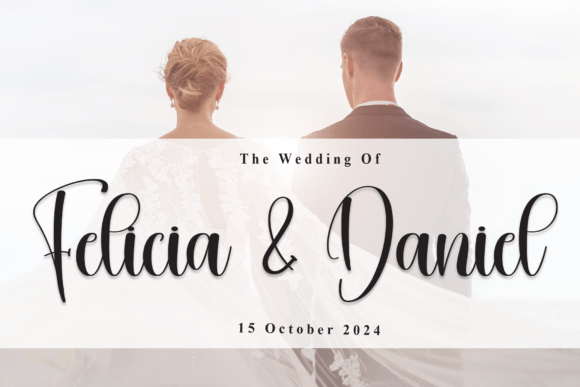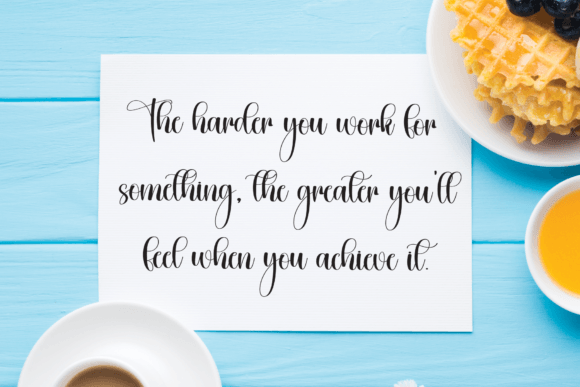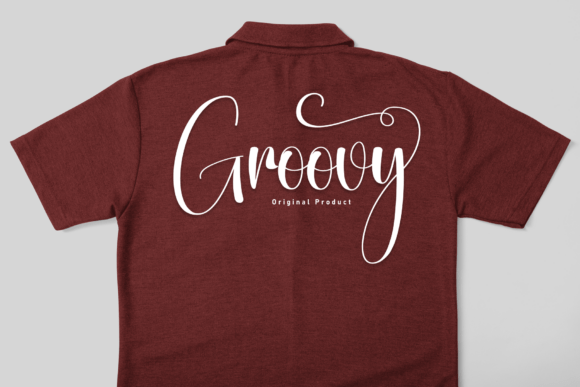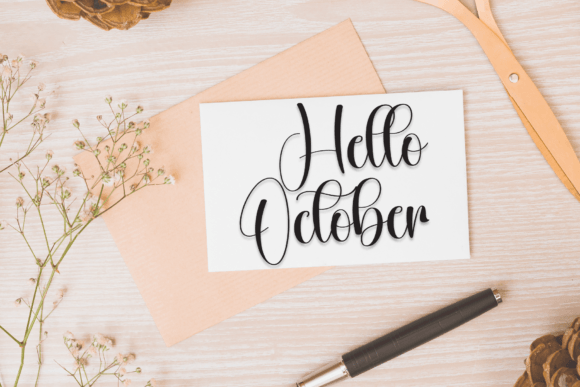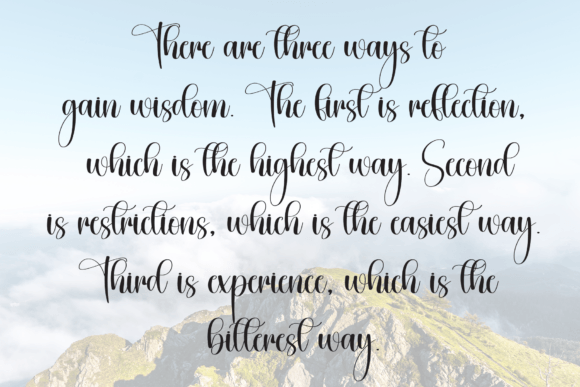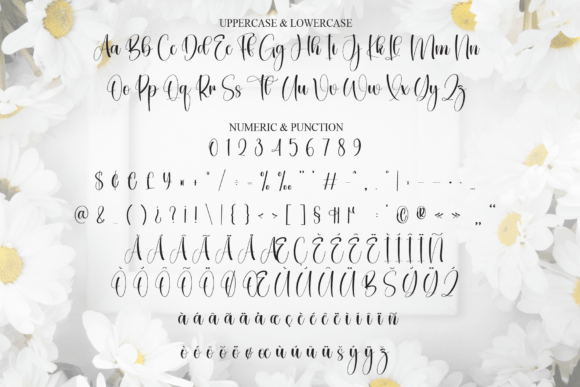
Introduction to Hey Daisy Font
Have you ever been in a creative flow, pouring your heart and soul into a design project, only to realize that it’s missing that special something? The spark that sets it off, the touch that makes it truly special? For many designers, this moment of truth often comes when they’re searching for the perfect font to bring their vision to life. And that’s exactly where the Hey Daisy Font comes in – a lovely handwritten font that adds a playful and friendly touch to any design.
With its smooth, flowing letters and charming curves, the Hey Daisy Font is the perfect design resource for adding a personal touch to invitations, greeting cards, and other creative projects. Whether you’re working on a high-quality design that requires a transparent background or a free download for a DIY project, this font is sure to bring a touch of joy and whimsy to your work.
Key Features of Hey Daisy Font
- Unique, hand-drawn design that adds a personal touch to any creative project
- Perfect for use in creative projects, such as logos, graphics, and typography-based art
Honest Review: Hey Daisy Font
As a designer, I’m always on the lookout for high-quality design resources that can elevate my creative projects. The Hey Daisy Font caught my attention, and I decided to give it a try.
What works well: ✨ I was impressed by the font’s elegant and whimsical design, which makes it perfect for projects that require a touch of sophistication. The font’s transparent background also makes it easy to use on various design backgrounds. Plus, it’s a free download, which is always a bonus!
Here are some key features I like:
However, I did notice a few limitations: ⚠️ The font doesn’t come with a comprehensive guide or instructions, which can make it tricky to use for beginners. Additionally, the font’s style may not be suitable for all types of projects, such as technical or informative content.
Overall, I think the Hey Daisy Font is a great addition to any designer’s toolkit. While it may not be perfect, its unique design and free download make it a valuable resource for creative projects. Just be aware of its limitations and use it accordingly.
Introduction to Hey Daisy Font
Hey Daisy Font is a high-quality design resource that offers a beautiful, elegant script font perfect for creative projects. With its transparent background, this font is ideal for adding a touch of sophistication to your designs.
Tips for Getting the Most Out of Hey Daisy Font
Use Hey Daisy Font in combination with other design elements to create a visually appealing design. Experiment with different font sizes, colors, and styles to find the perfect combination for your project.
Hey Daisy Font is perfect for creative projects such as wedding invitations, birthday cards, and social media graphics. Its elegant script style makes it ideal for adding a touch of sophistication to your designs.
The Hey Daisy Font is available in high-resolution formats, making it perfect for printing and digital use. The font files are designed to work at resolutions up to 300 DPI, ensuring that your designs look crisp and clear on any device or medium.